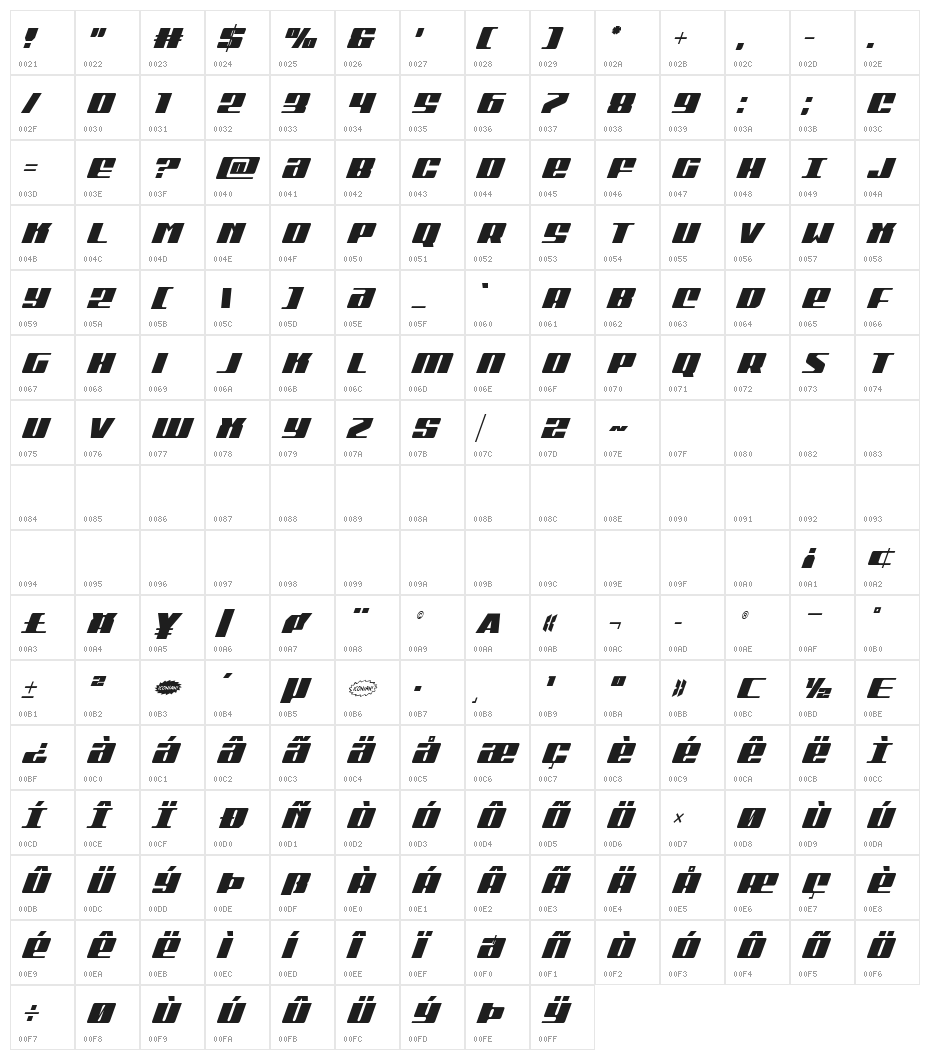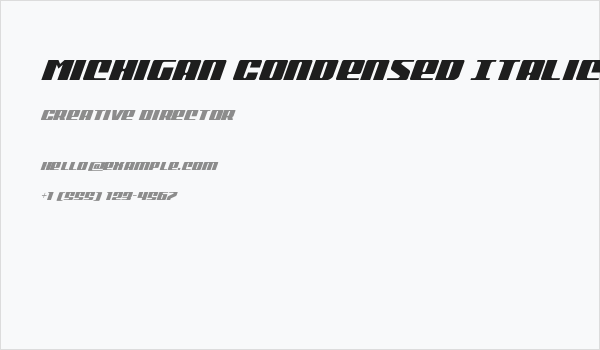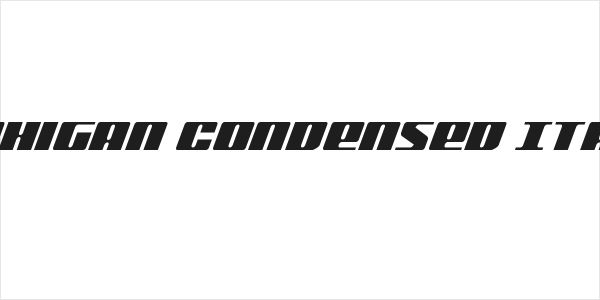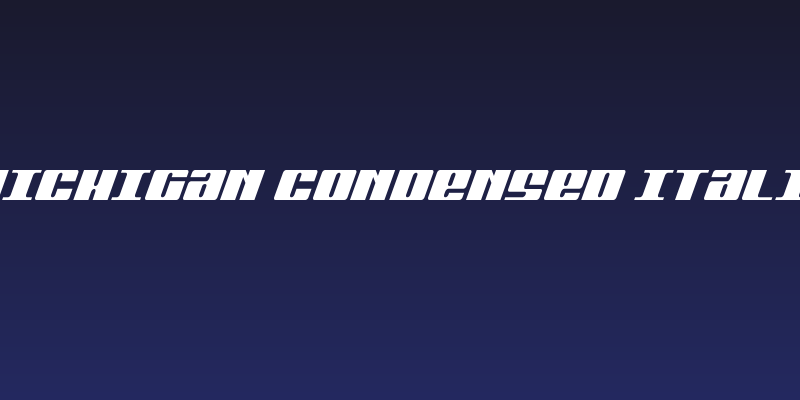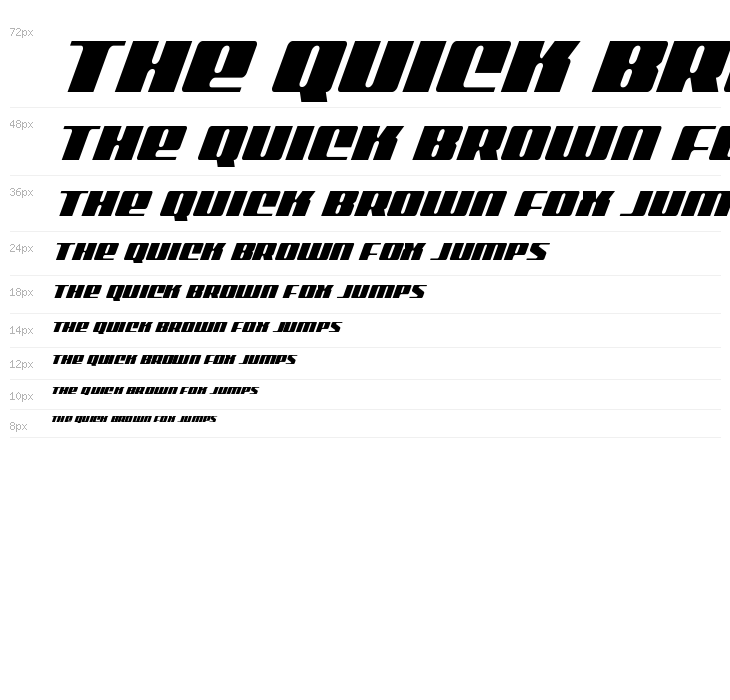
Michigan Condensed Italic Font
Michigan Condensed Italic Description
This font features a bold, italicized style with a condensed width, giving it a strong and dynamic appearance. The characters are designed with sharp angles and a forward-leaning slant, which adds a sense of motion and urgency. The uppercase and lowercase letters maintain a consistent height, enhancing readability while preserving the unique aesthetic. The numerals and special characters are crafted to match the overall style, ensuring uniformity across all text elements. This font's high contrast in stroke thickness emphasizes its boldness, making it a striking choice for impactful designs.
| Proposed Projects | Ideal for sports branding, dynamic posters, and modern advertising campaigns. |